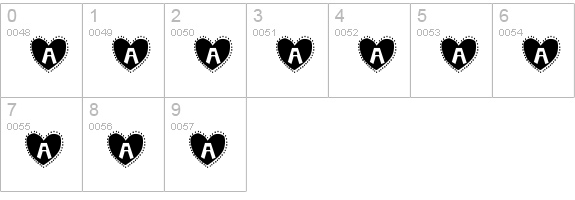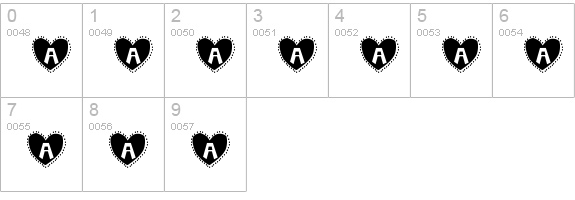
Krishart Font Details
Introducing Krishart font, a captivating typeface that combines elegance with modernity. This versatile font is perfect for a wide range of design projects, from branding to editorial design and more. With its sleek lines and stylish curves, Krishart font adds a touch of sophistication to any project. What's even better is that Krishart font is completely free to download! You can get your hands on this stunning font at FontsMarket.com, where you can explore a plethora of high-quality fonts for all your creative needs. Don't miss out on the opportunity to enhance your designs with the beauty of Krishart font - download it today and let your creativity soar!